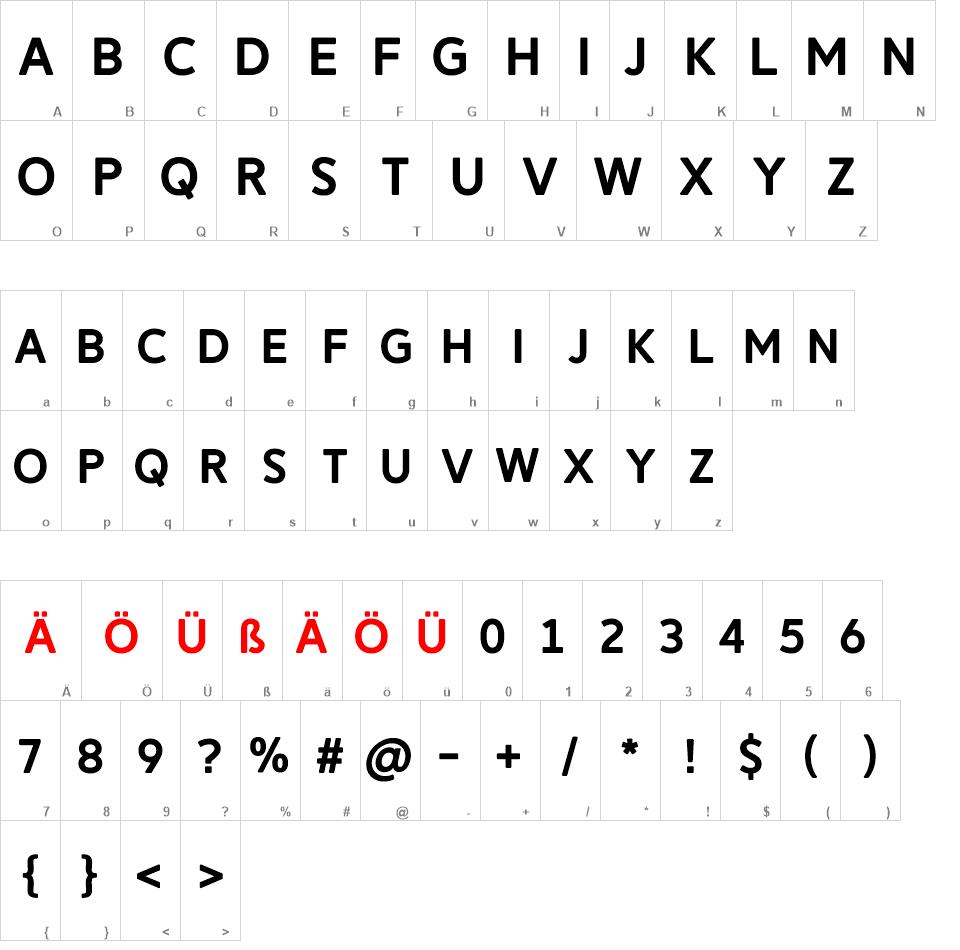
Reitam
Reitam font
Reitam
Reitam is a (super) clean sans serif font.
The font features soft, rounded corners which makes it a friendly typeface that is easy on the eyes.
Reitam is (super)legible in different formats. It doesn’t matter if you want to use it for a large bold headline or small body text, on both web or print the font will look great in all sizes.